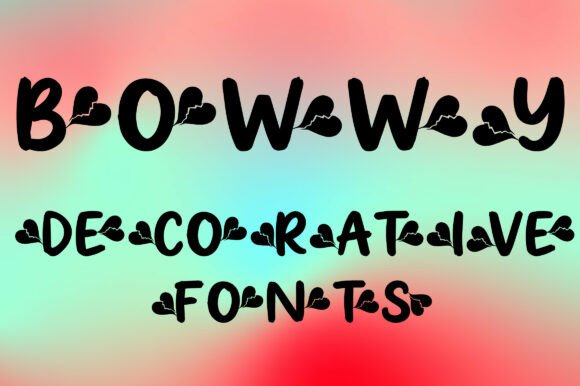
The Sweetest Font You’ll Fall in Love With: BOWWY Decorative Sweet Heart Style Fonts
I’ll never forget the time I was working on a Valentine’s Day project for a client, and I just couldn’t find the perfect font to capture the sweet and playful vibe they were looking for. I scoured the internet, tried out dozens of fonts, but nothing seemed quite right. That was until I stumbled upon BOWWY Decorative Sweet Heart Style Fonts. It was love at first sight! 💕
This adorable typeface has been a game-changer for my designs, and I’m excited to share it with you. BOWWY is inspired by lovely heart elements and sweet artistic charm, making it perfect for adding a touch of warmth, happiness, and personality to any project.
• ✅ Adorable and playful design that’s perfect for Valentine-themed designs, social media graphics, and more
• ✅ Features uppercase English letters A–Z and numbers 0–9, giving you plenty of options for creative expression
• ✅ Easy to read and understand, even at smaller font sizes
• ✅ Highly versatile and can be used for logos, branding, invitations, posters, packaging, and more
• ⚠️ Limited character set (only uppercase English letters and numbers)
• ⚠️ May not be the best choice for body text or long-form content
The Backstory Behind BOWWY
BOWWY was designed with love and care by a talented type designer who wanted to create a font that would capture the sweetness and playfulness of the heart. Inspired by the beauty of hand-drawn typography and the charm of artistic expression, BOWWY was born. Whether you’re a designer, crafter, or creative hobbyist, BOWWY is sure to bring a touch of joy and whimsy to your projects.
Font Name Bowwy Font
Author MOMAT THIRTYONE
Q: What is BOWWY font?
A: BOWWY is a decorative sweet heart style font inspired by lovely heart elements and sweet artistic charm.
Q: What languages does BOWWY support?
A: BOWWY currently supports English, with a character set that includes uppercase English letters A–Z and numbers 0–9.
Q: Is BOWWY easy to read?
A: Yes, BOWWY is designed to be easy to read and understand, even at smaller font sizes.